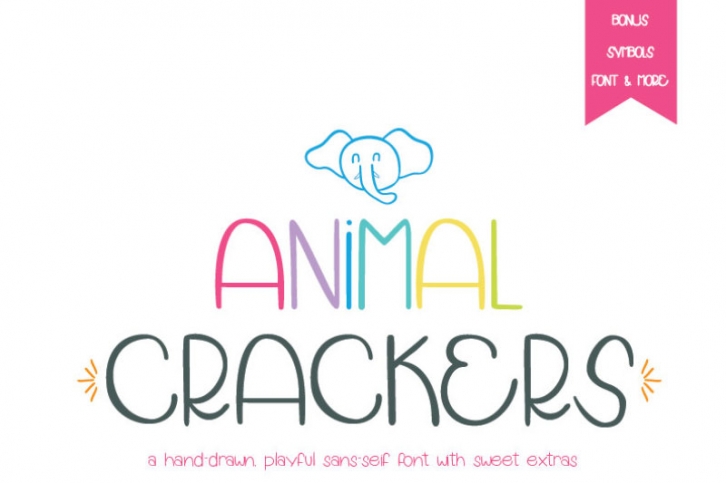
Introducing Animal Crackers Font: Uppercase, Lowercase and Symbols! A playful, hand-drawn sans font, includes your own set of “animal†crackers! Also, includes a bonus file! An uppercase and lowercase font. A symbols font with 15 “animal†crackers, 11 other symbols, and 26 word symbols for a total of 52 symbols, also includes a symbols character sheet pdf on what each symbol corresponding with each letter of the alphabet.